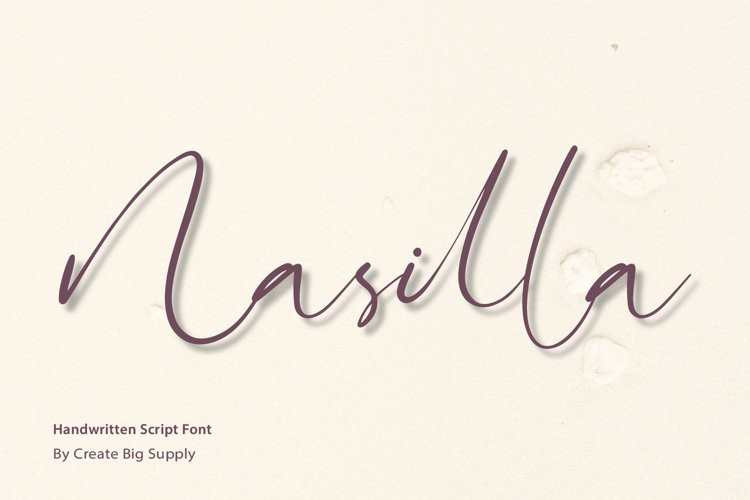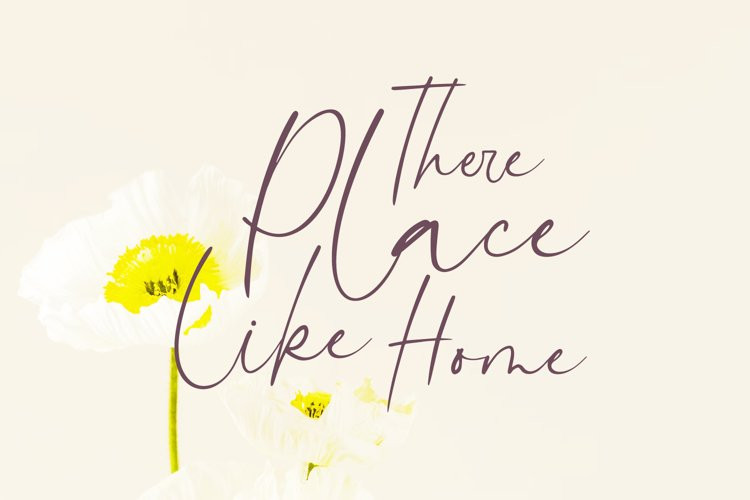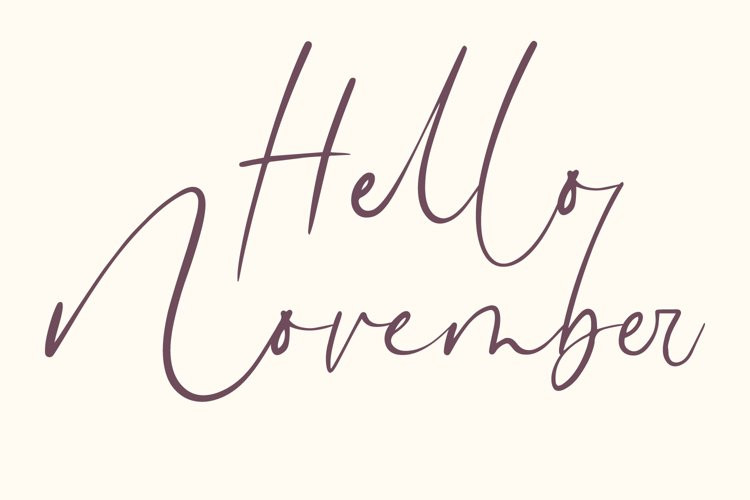
Nasilla Font
Nasilla FontNasilla is a handwritten font with many ligaute features which gives it a natural feel and looks like real handwriting. Be mesmerized by its beautiful style and use it to create beautiful wedding invitations, beautiful stationary art, eye-catching social media posts and more! This font is PUA encoded which means you can access all the amazing glyphs and ligatures easily